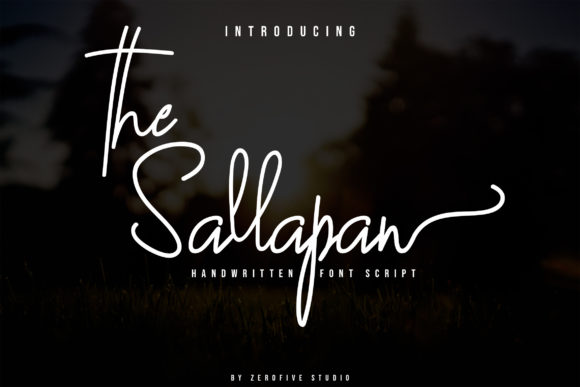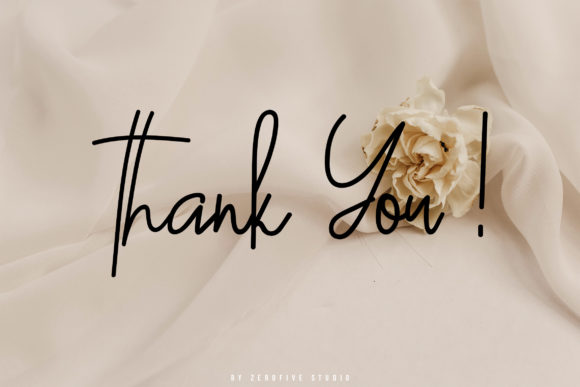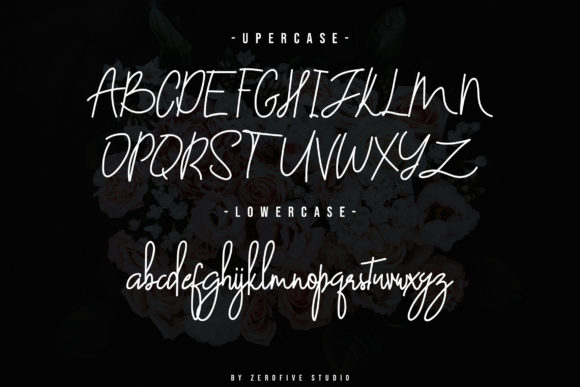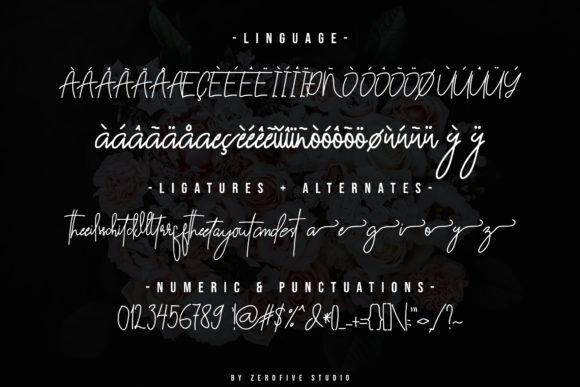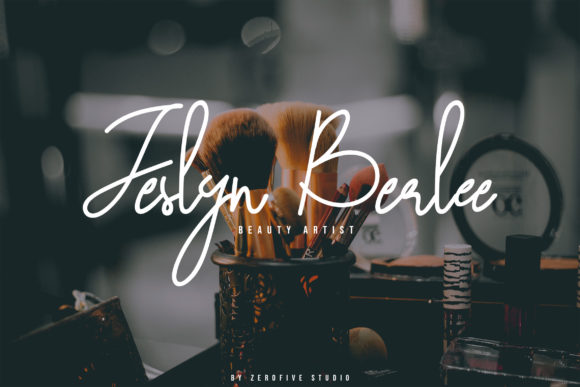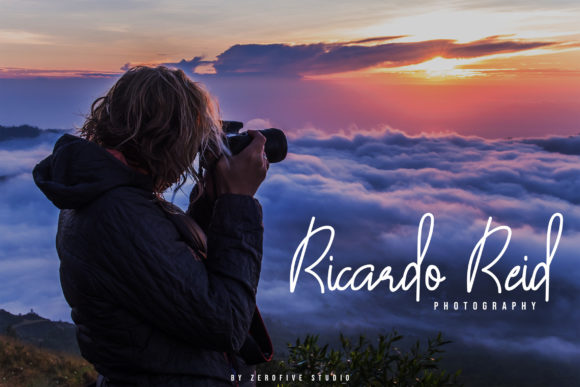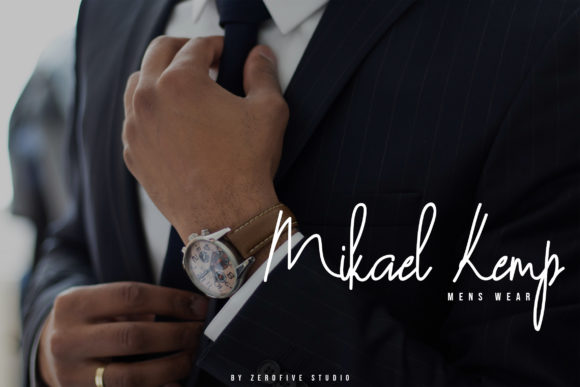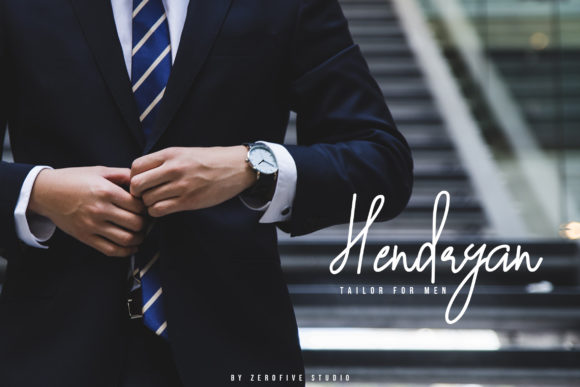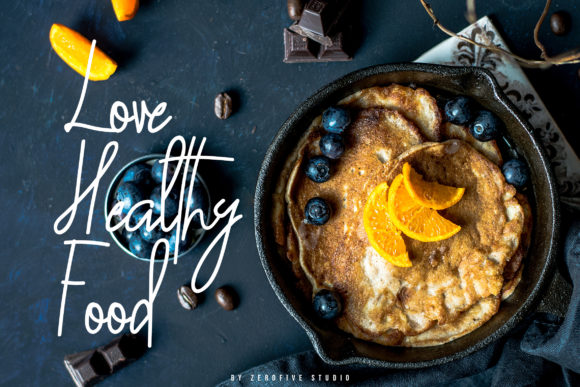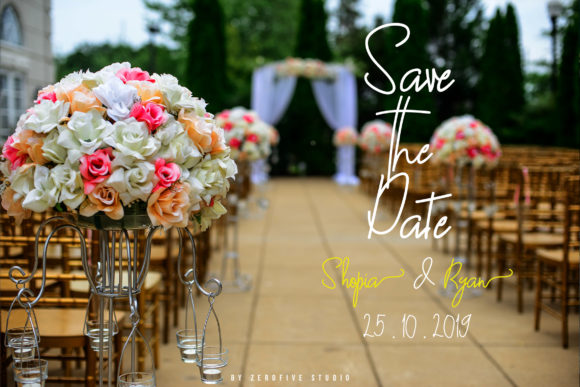
HomeScript FontsThe Sallapan Font Script Fonts The Sallapan Font FacebookXPinterestWhatsApp The Sallapan Font Poster 2 The Sallapan Font Poster 3 The Sallapan Font Poster 4 The Sallapan Font Poster 5 The Sallapan Font Poster 6 The Sallapan Font Poster 7 The Sallapan Font Poster 8 The Sallapan Font Poster 9 The Sallapan Font Poster 10 About The Sallapan Font The Sallapan is an elegant and stylish script. It will give your designs a classy style! DOWNLOAD ON CREATIVE FABRICAThis font is sold and delivered by Creative Fabrica. Font Canyon may earn a commission if you buy through this link. People also explored Gimbel Script Hi Prety’s Font Aquabay Summer is Gone Font Riverside Font Silver Buttercup Font RS01 Cursiva Rhinestone Template TTF Font Daffodile Font Butternut Font 356 0 TagsThe Sallapan Font Previous articleUmbrella Script FontNext articleSfattii Font LEAVE A REPLY Cancel reply Comment: Please enter your comment! Name:* Please enter your name here Email:* You have entered an incorrect email address! Please enter your email address here Website: Save my name, email, and website in this browser for the next time I comment. Personal Use Free Catandra Script Personal Use Free Read more about this font Juliagar Personal Use Free Read more about this font Mellow Personal Use Free Read more about this font Boronic Personal Use Free Read more about this font BLOG Elegant Wedding Invitation Fonts – Handwritten & Script Fonts Elegant Wedding Invitation Fonts Your wedding day is one of the most important moments of your life, and every detail matters—including your invitation design. Our... Where to Buy American Fonts Online in 2024 Fonts That Capture the Spirit of New York City Free Fonts Risk: Why Free Fonts Can Be Dangerous for Designers